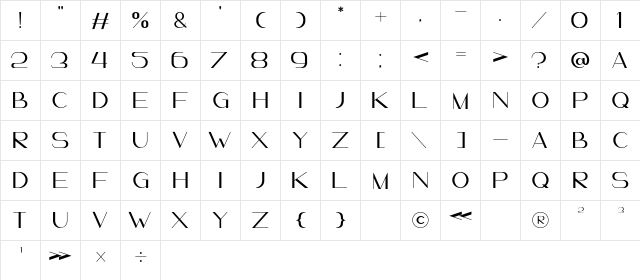
LeanderDemo Regular
| Designer | Candi Erwanto |
Design Context for LeanderDemo Typeface
LeanderDemo is a composed and adaptable typeface that performs quietly and consistently across a wide range of design contexts.